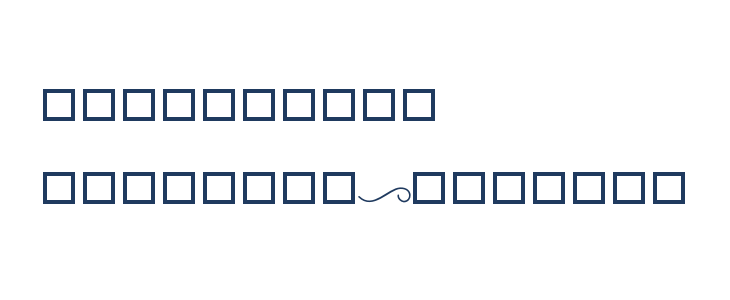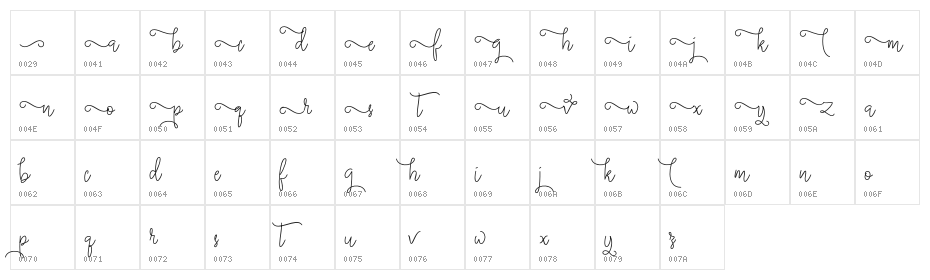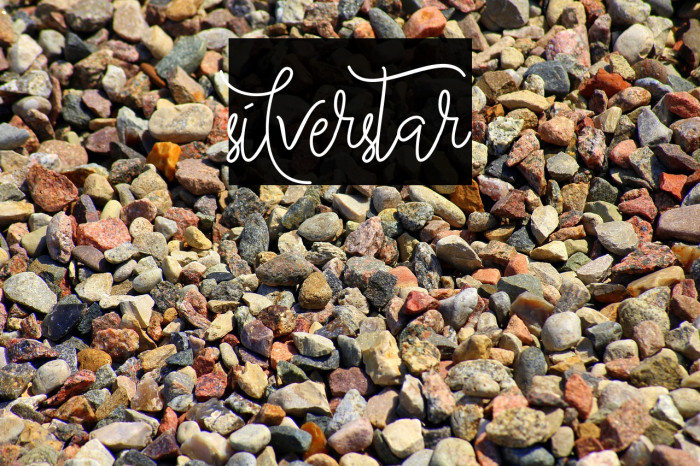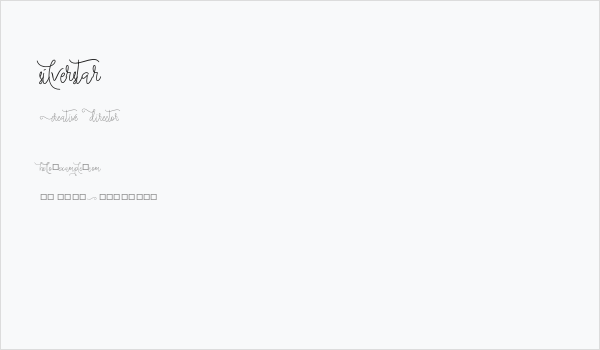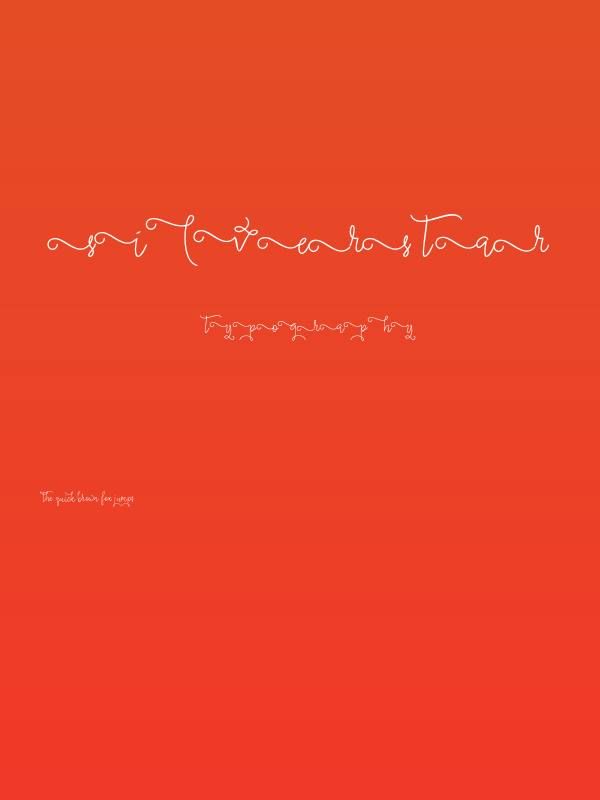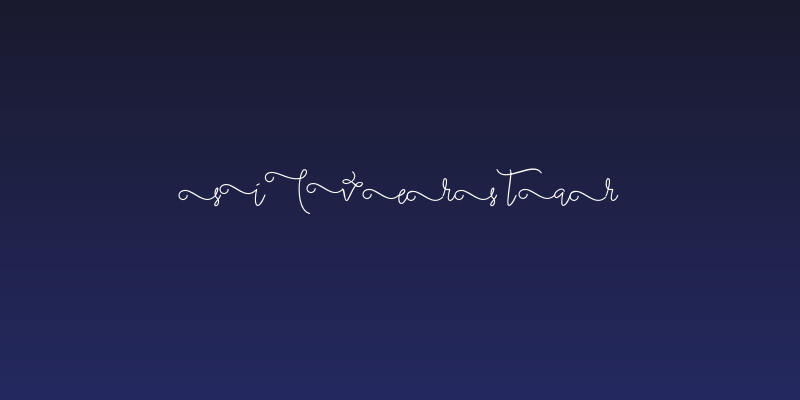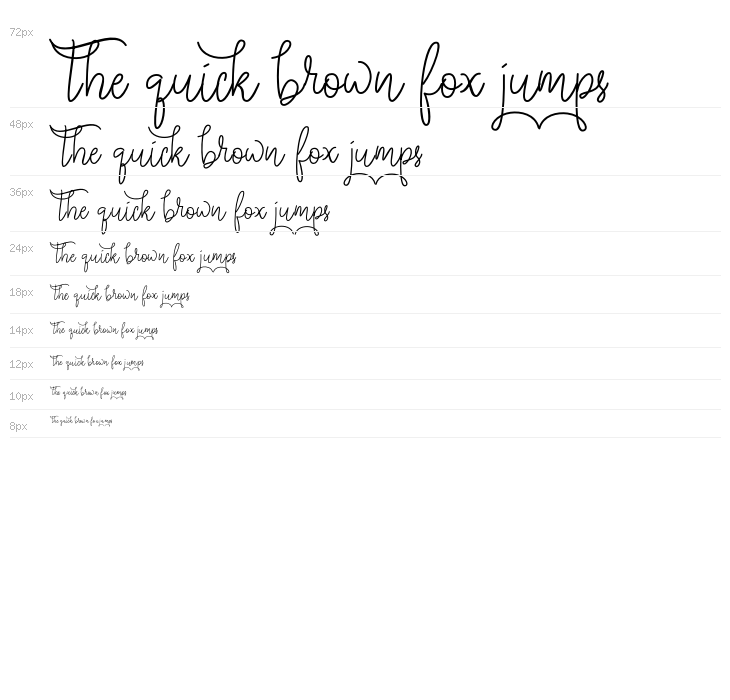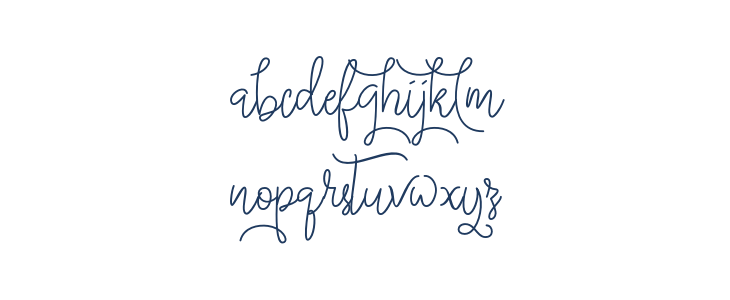
silverstar Font
silverstar Description
This font features an elegant and flowing script style, characterized by its intricate and decorative swirls. The uppercase letters are bold and prominent, with a distinct flair that adds a touch of sophistication. The lowercase letters maintain a consistent flow, connecting seamlessly to create a harmonious appearance. The font's design is reminiscent of classic calligraphy, with a modern twist that makes it suitable for contemporary applications. The overall aesthetic is both graceful and stylish, making it ideal for projects that require a touch of elegance and refinement.